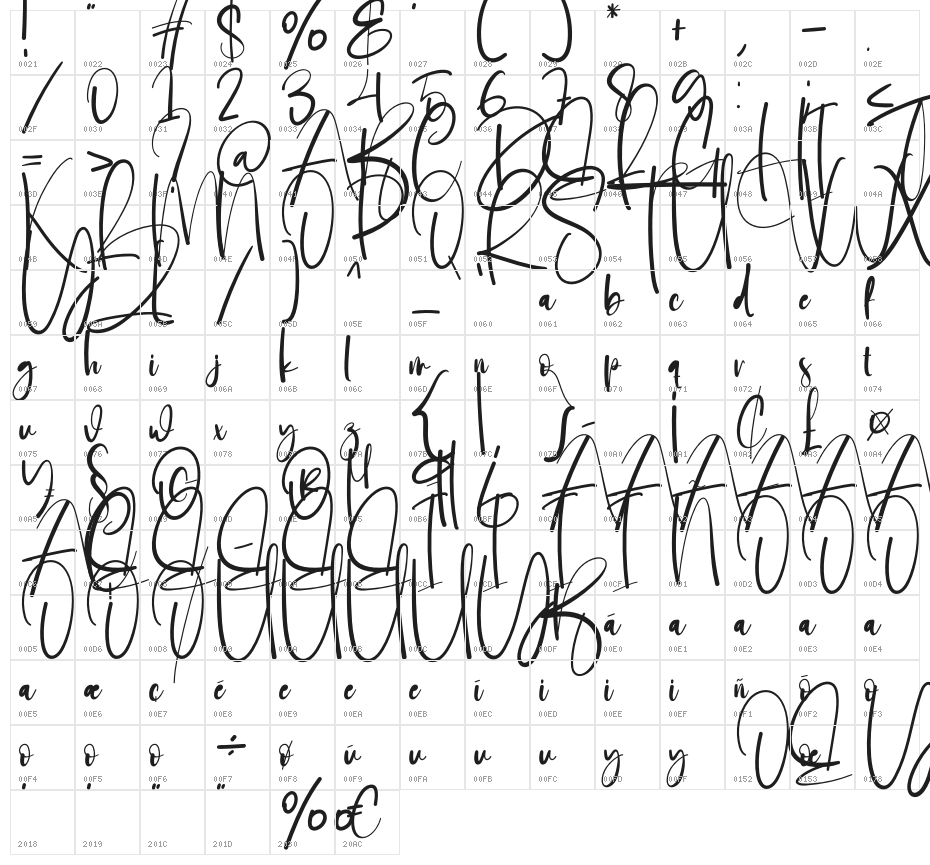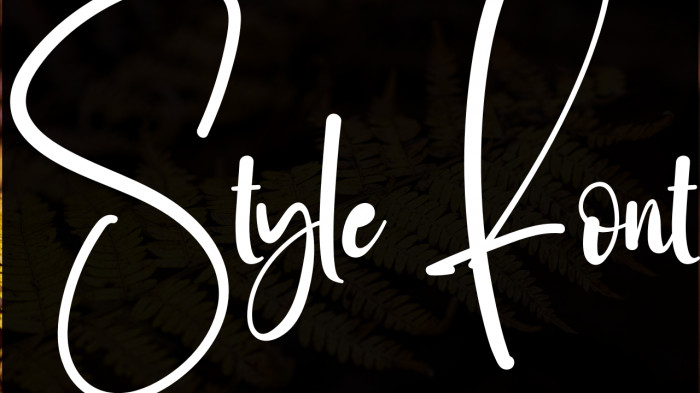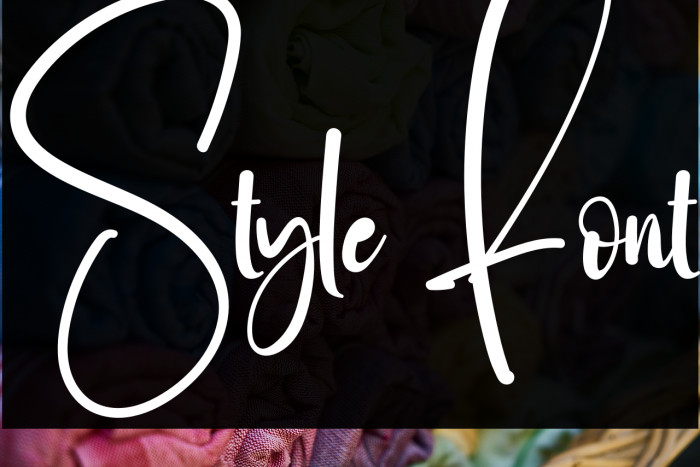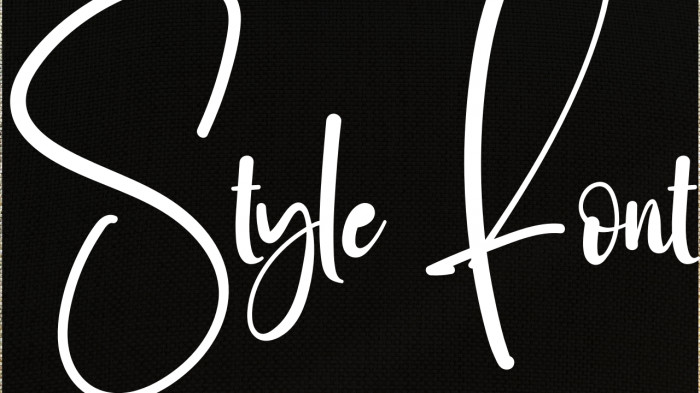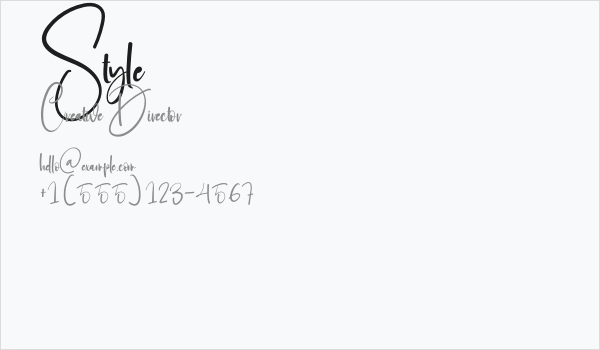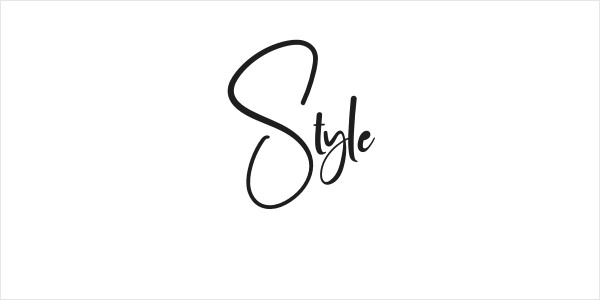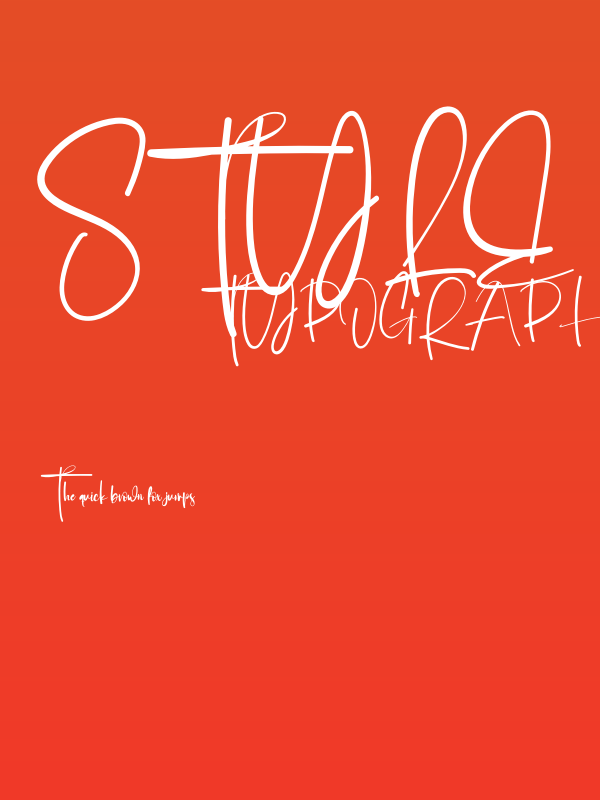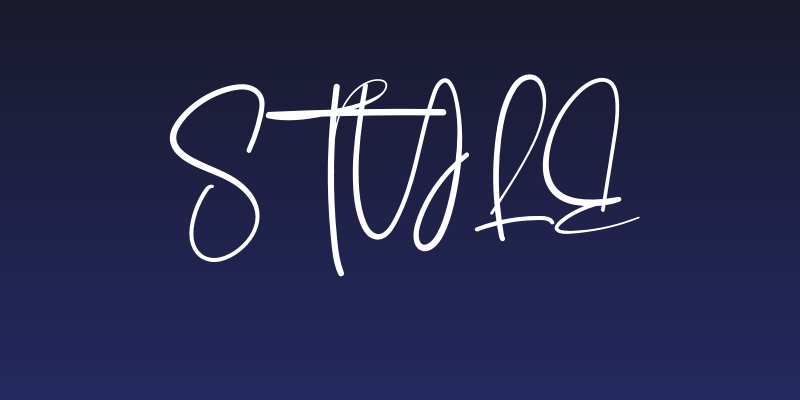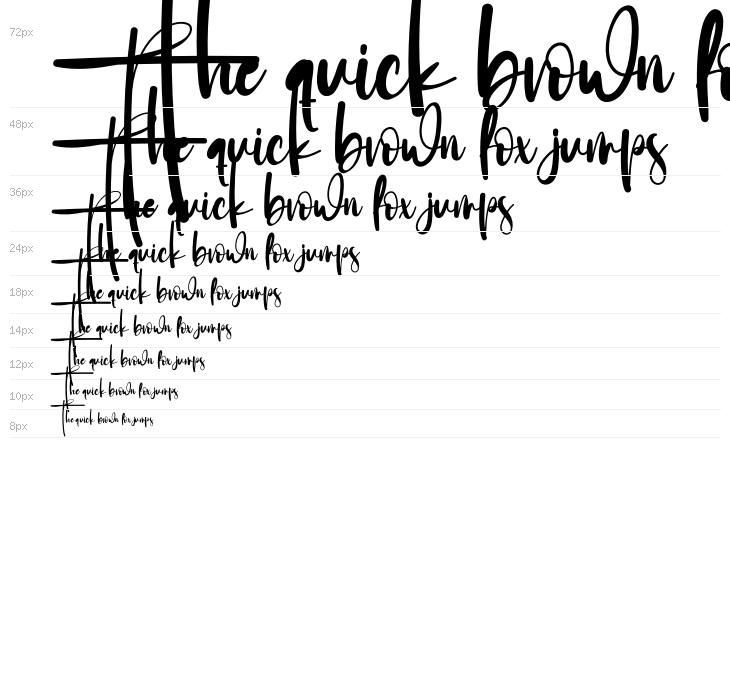
Style Font
Style Description
A playful, handwritten script font with a casual and flowing style, featuring varying stroke widths and a lively appearance.
| Overall Style | Casual, Playful |
| Use Case | Logos, Invitations, Personal projects |
| Proposed Projects | Greeting cards, invitations, personal branding. |